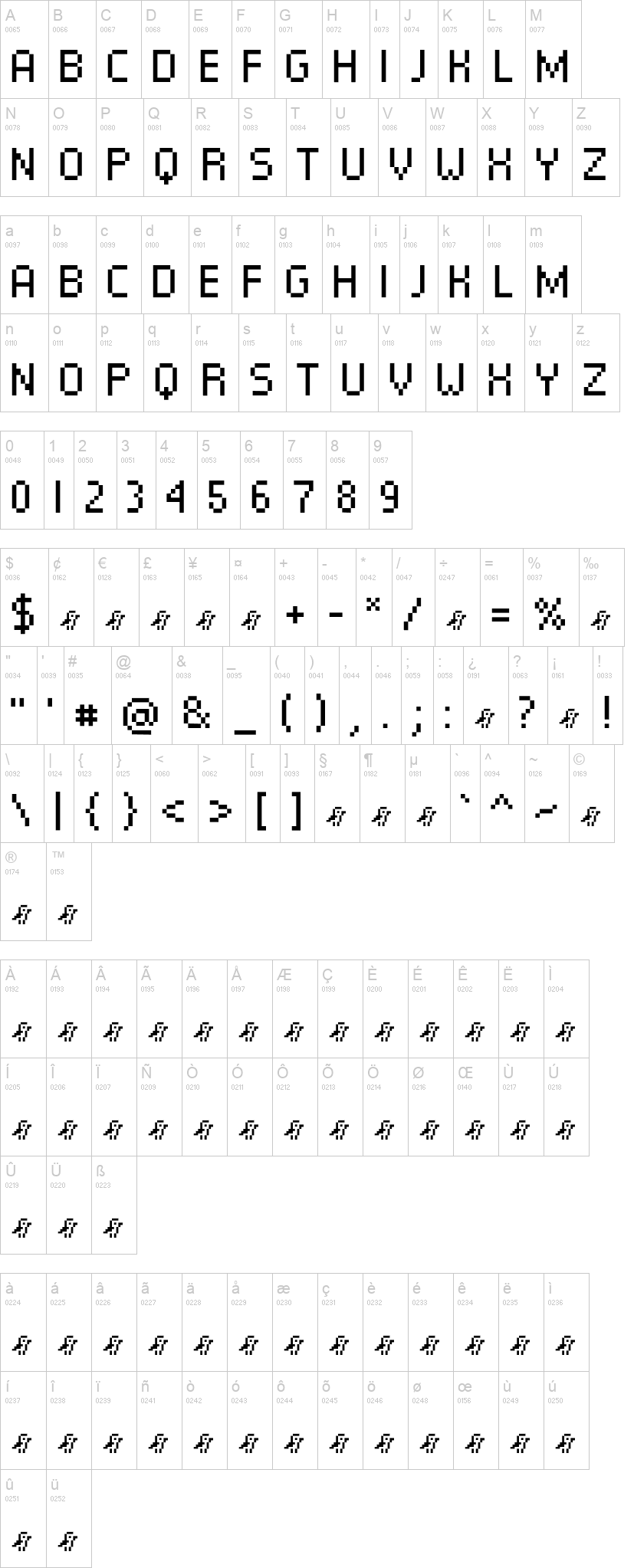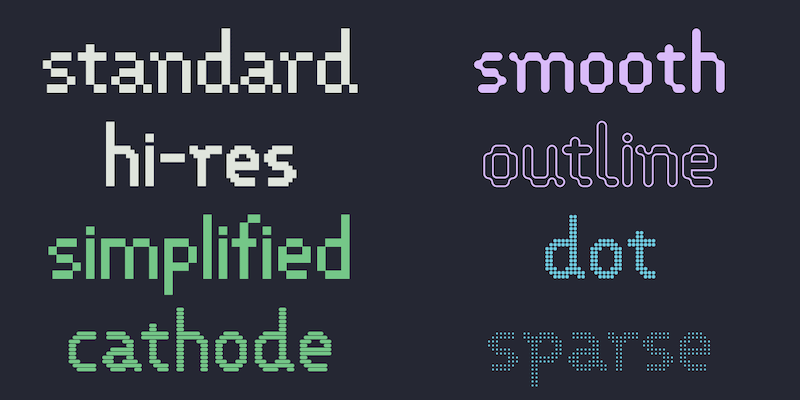
Note of the authorVP Pixel is a font family of eight classic pixel styles that feel both retro and futurist.
All styles include an extensive character set with support for advanced OpenType features.